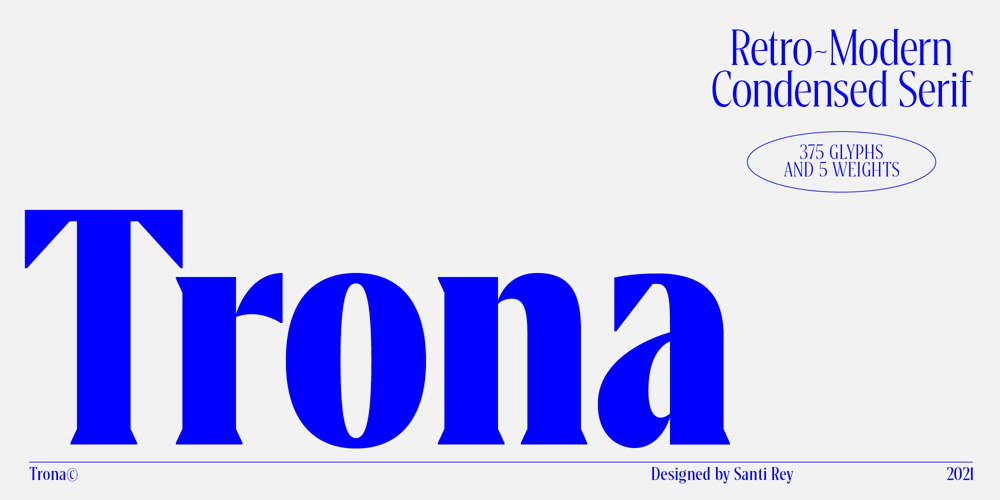
Trona Font Family was designed by Santi Rey and published by Monotype. Trona contains 5 styles and family package options. Trona is a retro-modern condensed serif.Inspired by the typefaces used in print media headlines in the 20th century and with geometrical sharp terminals.Trona comes in 5 weights and with 375 glyphs (covering the major latin based languages)